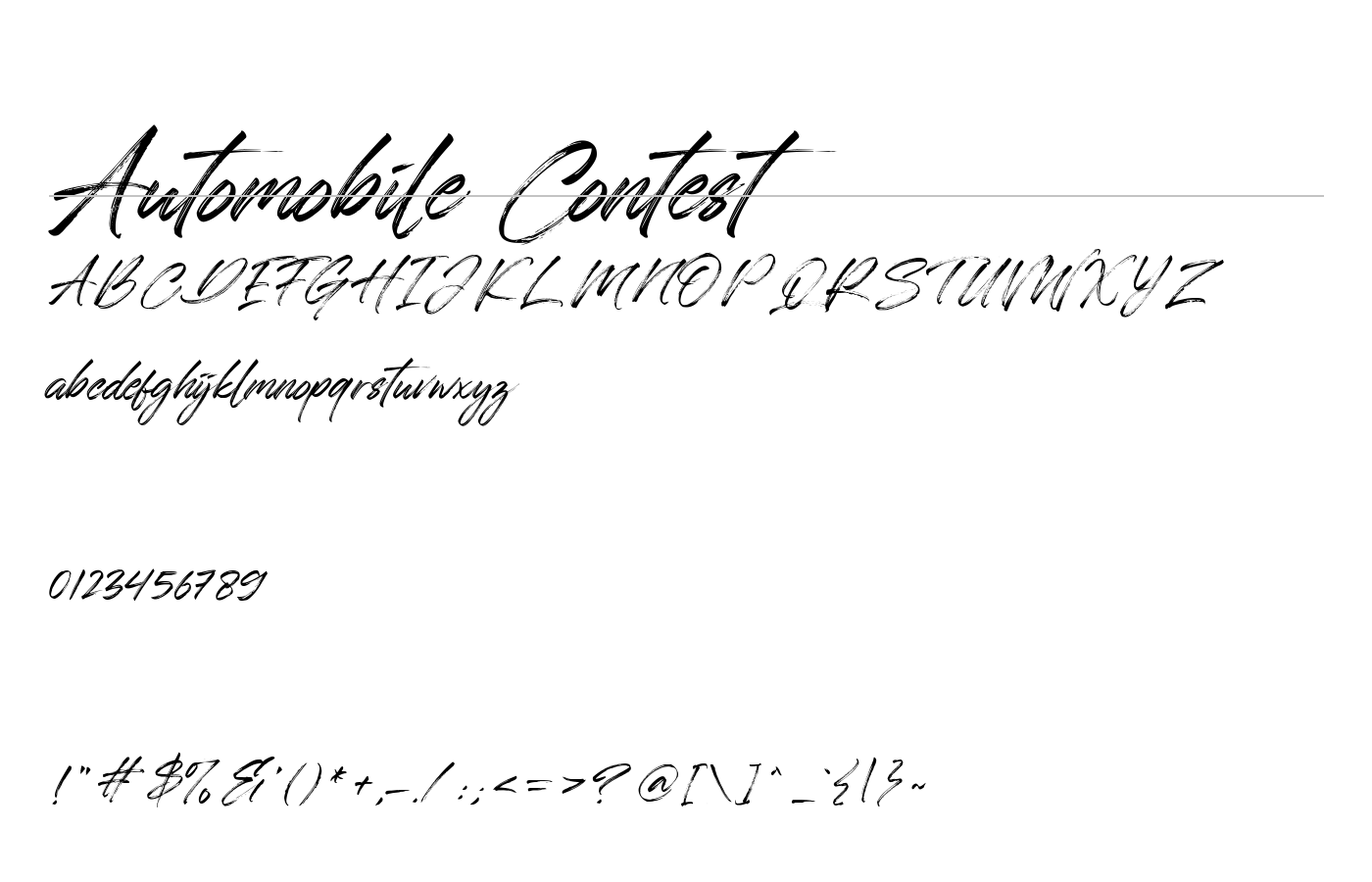
Automobile Contest is a dynamic and energetic script font that mimics hand-painted brush strokes with a rough, textured finish. Its slender, slightly condensed letterforms and varied stroke thickness give it a sporty, fast-paced feel, making it perfect for designs seeking a bold, active, and stylish look. This font works especially well in logos, posters, and branding related to sports, automotive themes, or modern lifestyle projects where a sense of motion and excitement is desired.
Automobile Contest Font
About Automobile Contest Font
| Font family | Automobile Contest Font |
| Designer | Ghazi Humam Fauzan |